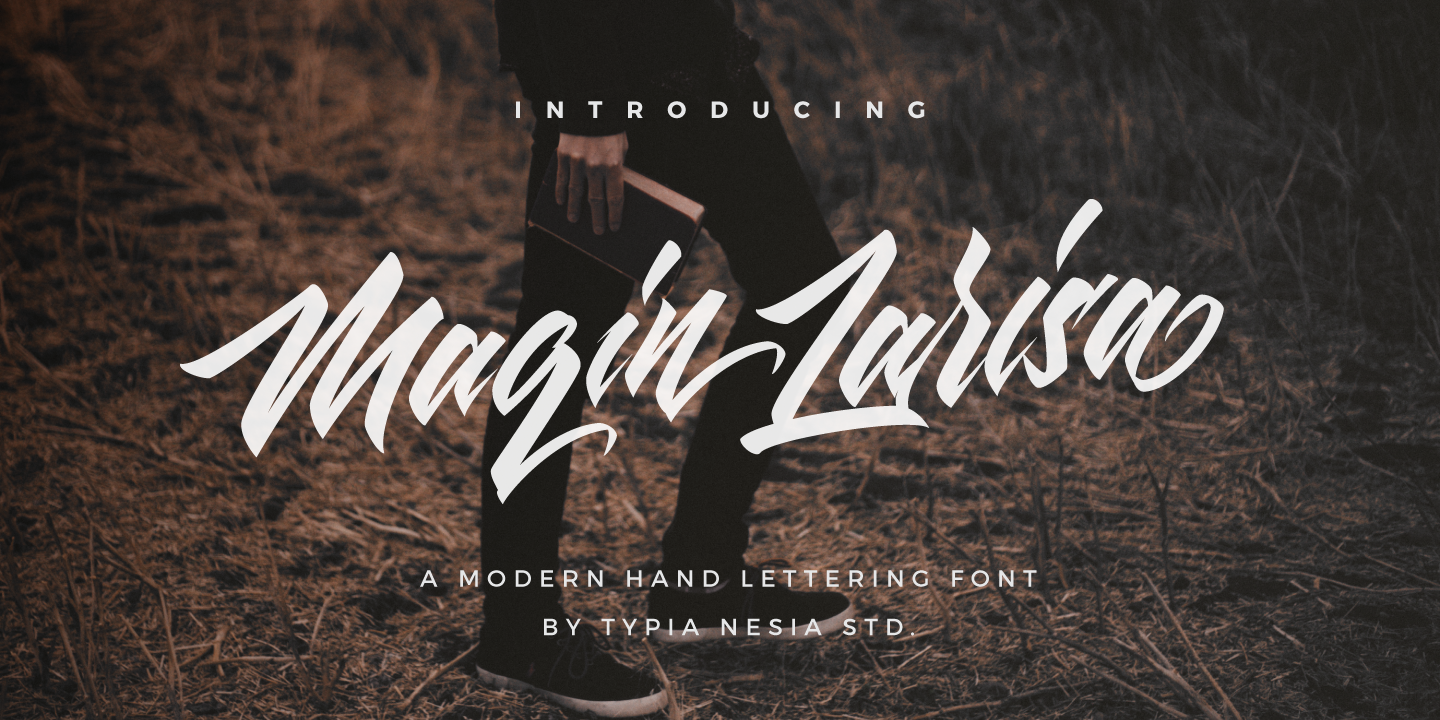
The Maqin Larisa Font Free Download is a luxurious and elegant script font perfect for wedding invitations, branding, social media graphics, logo designs, fashion magazines, and high-end packaging. Its flowing strokes and graceful curves bring a touch of class to every design project it touches.
What makes this font exciting is its sophisticated personality. It captures the essence of modern calligraphy while remaining highly legible. The swashes and stylistic alternates add visual interest and make your text feel custom-made, adding that “wow” factor to names, headlines, and signature logos.
The Maqin Larisa font family includes multiple weights and decorative alternates such as Regular, Italic, Swash, and Signature variants. These allow you to create dynamic layouts and adjust tone with ease—whether you want something soft and romantic or bold and luxurious.
If you're building a brand with elegance, romance, or luxury at its core, Maqin Larisa Font Free Download is an excellent choice. It brings emotional depth to your typography and ensures your message is felt as well as read.